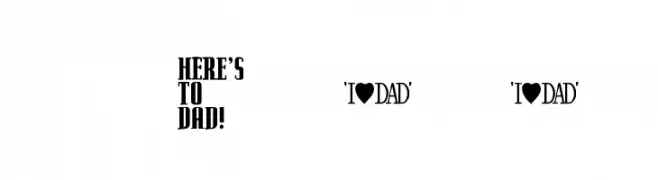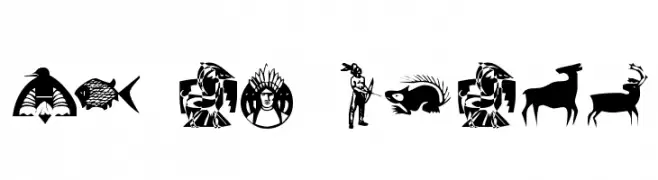
A decorative font featuring Jewish cultural symbols like menorahs and Stars of David.
A decorative font with heart-themed symbols perfect for Valentine's designs.
A playful, thematic font featuring Father's Day phrases and symbols.
A decorative font with culturally inspired symbols and illustrations.
A decorative dingbat font of abstract, circular icons and symbols.
A decorative collection of tulip-themed icons and symbols.
A decorative collection of leaf-themed symbols and icons.
A decorative collection of star-themed symbols and icons.
A playful collection of illustrated symbols with a hand-drawn, cartoonish style.
A whimsical, decorative font featuring festive symbols and illustrations.